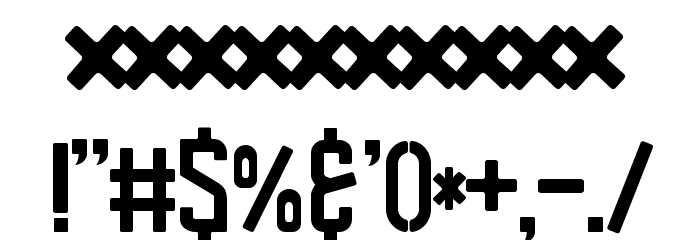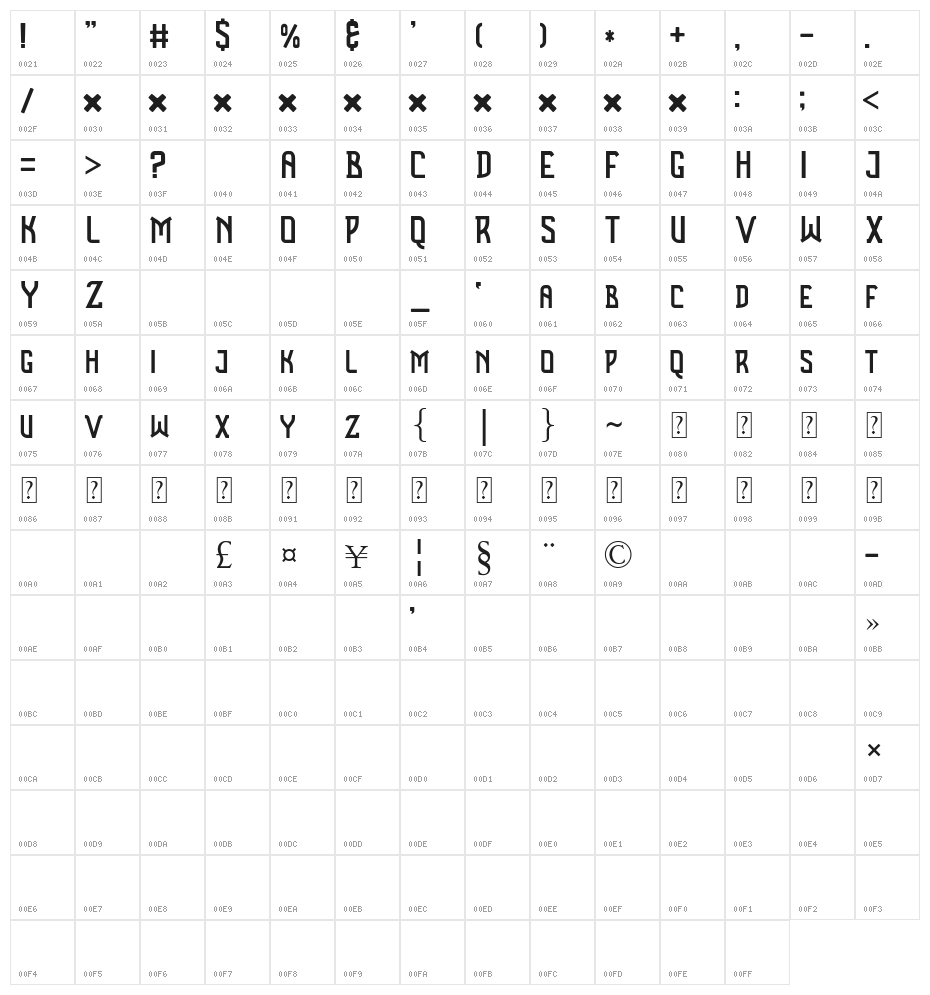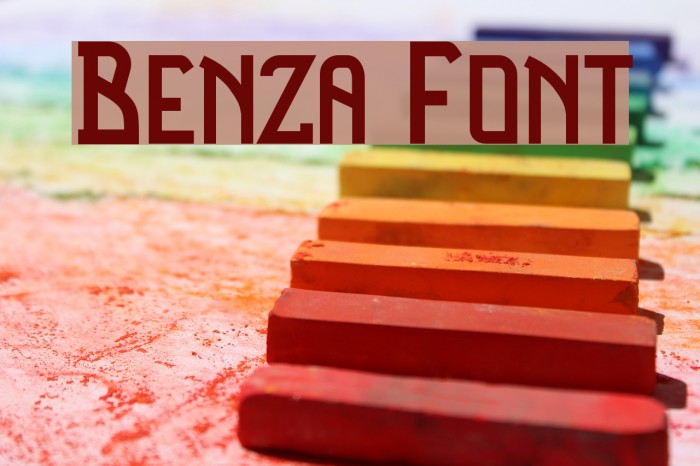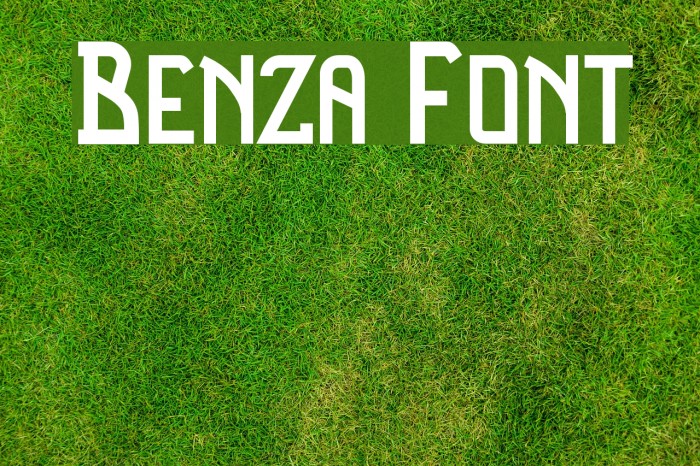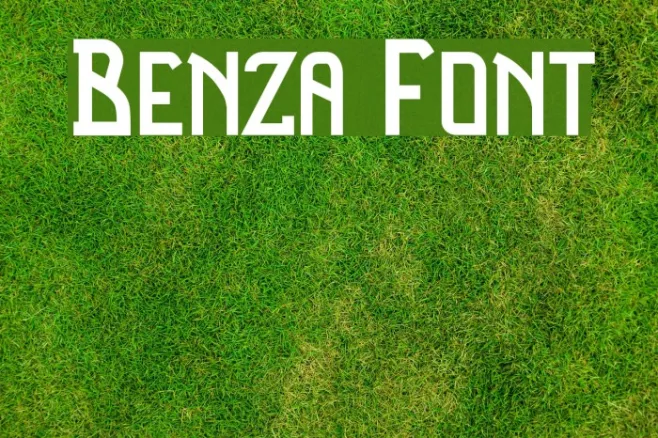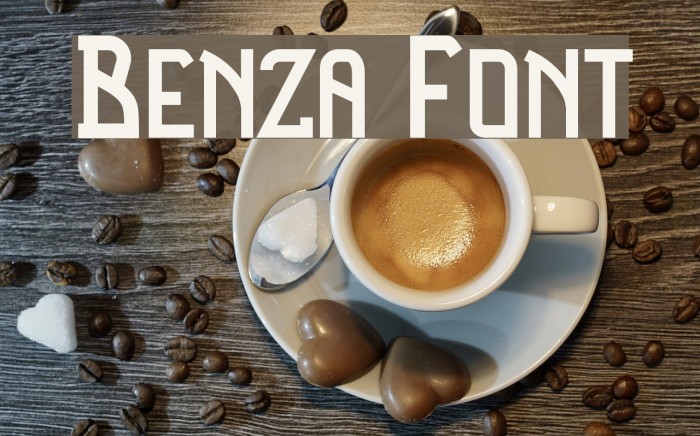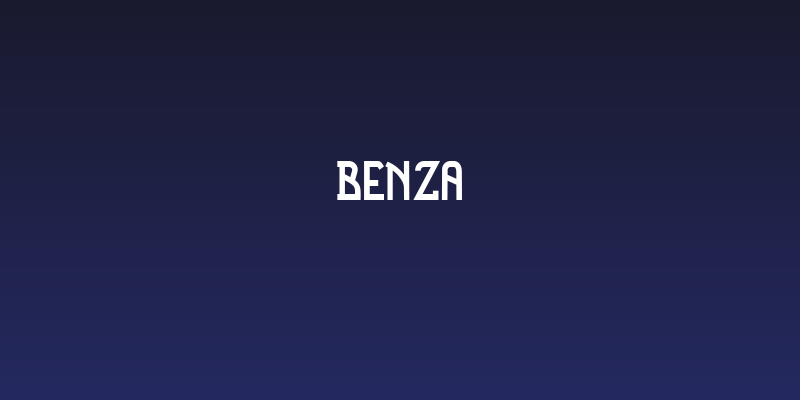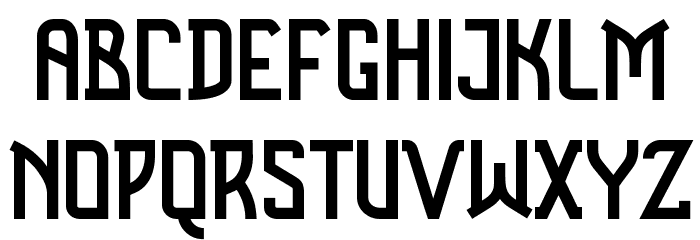
Benza Font
Benza Description
This font features a bold, geometric design with sharp angles and a modern aesthetic. The uppercase letters are characterized by their strong, angular lines and consistent stroke width, giving them a robust and impactful appearance. The lowercase letters maintain the same geometric style, ensuring cohesion throughout the typeface. The numbers and special characters are designed to match the boldness and angularity of the letters, making them suitable for attention-grabbing displays. The font's unique style is ideal for projects that require a contemporary and edgy look, such as branding, posters, and digital media.